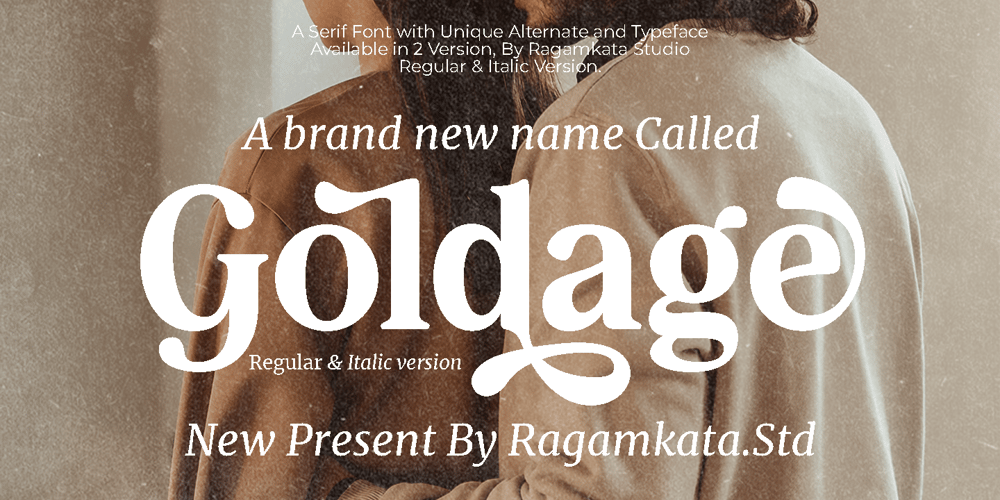
Goldage Font Family was designed by Yogiswhara Dio Prakoso Riadi and published by RagamKata. Goldage contains 2 styles and family package options. Goldage, an elegant and stylish font that will make your design look priceless. A graceful typeface, with a perfect shape and ligatures will make your design look graceful. This typeface is a perfect for a luxury logo, classy editorial designs, fashion brand and promotion, and much more. Get Goldage to make your design as pure as GoldGoldage font will also include some features : – Ligatures & Alternates – Letters, numbers, symbols, and punctuation – No special software is required to use this typeface even work in Canva – Multilingual Support Kindly do contact us if you have any questions, For more exclusive font, kindly please visit our studio “Ragamkata Studio” Enjoy crafting and make your ideas come to life! Thank you, Ragamkata Studio